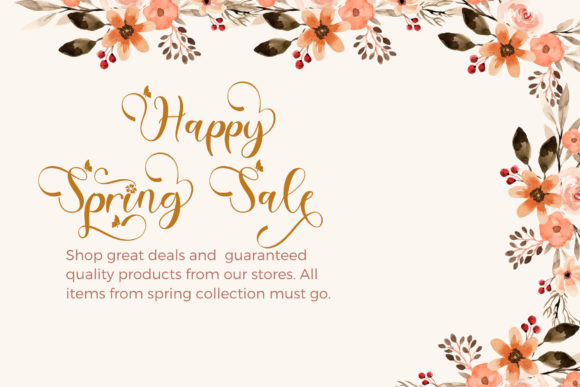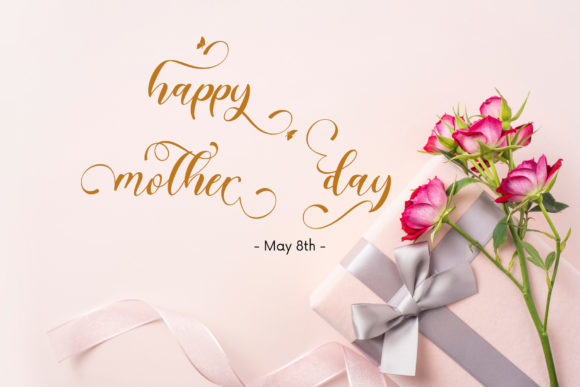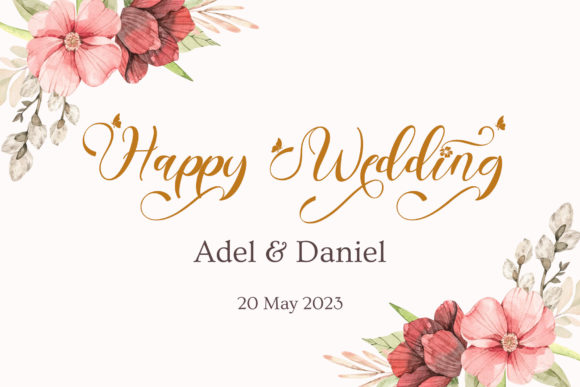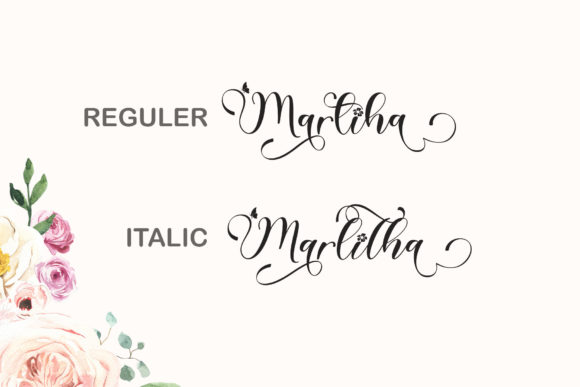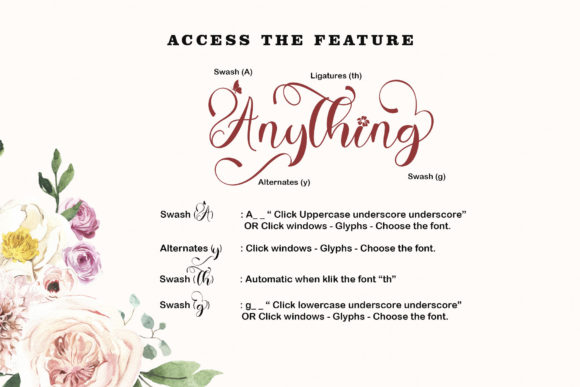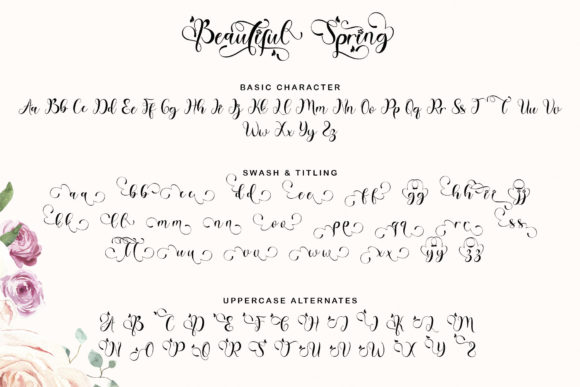
Spring into Design with Beautiful Spring Font
As the seasons change and spring arrives, our creativity often follows suit. We find ourselves drawn to lighter colors, fresher scents, and of course, beautiful typography. For designers, this time of year is the perfect opportunity to refresh our designs and bring in some new inspiration. And what better way to do that than with a stunning new font?
Enter the Beautiful Spring Font, a gorgeous script font designed specifically for packaging products, invitation cards, flyers, mockups, event posters, and more. With its elegant and balanced character, this font is sure to add a touch of sophistication to any design. As a PUA encoded font, you’ll have access to all of its lovely glyphs and swashes, making it a valuable addition to any designer’s toolkit.
Key Features of Beautiful Spring Font
- Unique Characteristics: Beautiful Spring Font features a unique blend of modern and traditional design elements, with elegant lines, subtle curves, and a touch of whimsy, making it perfect for creative projects.
- Style Variations: Beautiful Spring Font comes in multiple styles, including Regular, Italic, Bold, and Bold Italic, giving you the flexibility to choose the perfect look for your project.
- Scalability: The font is designed to be highly scalable, meaning it looks great in small sizes and still maintains its clarity and readability in larger sizes.
Designer Review: Beautiful Spring Font
I must say, the Beautiful Spring Font caught my eye at first glance. ✨ The elegant script style and the delicate curves are truly stunning. The font seems perfect for any spring-themed design or project that needs a touch of whimsy. The letterforms are well-balanced and legible, making it suitable for body text as well.
Some of the key features that stand out to me are:
- ✨ Unique and distinctive style that’s perfect for creative projects
- ✨ Elegant and refined letterforms that add a touch of sophistication
- ✨ Well-balanced and legible, making it suitable for body text
- ✨ Available in a variety of font weights and styles
- ⚠️ Limited language support, which may be a concern for multilingual projects
- ⚠️ Not suitable for highly technical or formal content, as it may appear too ornate
Overall, I think the Beautiful Spring Font is a beautiful and unique addition to any designer’s toolkit. While it may have some limitations, its strengths far outweigh its weaknesses. It’s perfect for creative projects that require a touch of elegance and whimsy.
Beautiful Spring Font Practical Application Guide
The Beautiful Spring Font is ideal for creating spring-themed designs, such as invitations, greeting cards, and social media posts. To get the most out of it, use it in combination with pastel colors and floral patterns. Experiment with different font sizes and styles to create a visually appealing design.
Alternatives to Beautiful Spring Font
Beautiful Spring Font is a popular script font, but sometimes designers may need alternatives for their projects. Here are a few options:
Lovelo Script
Lovelo Script is a beautiful, elegant script font with a romantic feel. It’s perfect for wedding invitations, baby shower invitations, and other special occasions where a touch of romance is needed. Lovelo Script has a more delicate and refined look compared to Beautiful Spring Font, which makes it a great choice for formal events.
Great Vibes is a modern script font with a relaxed, casual feel. It’s great for creating a laid-back atmosphere and is perfect for use in advertising, social media, and other digital media. Compared to Beautiful Spring Font, Great Vibes has a more modern and edgy look, making it a great choice for projects that require a fresh and contemporary feel.